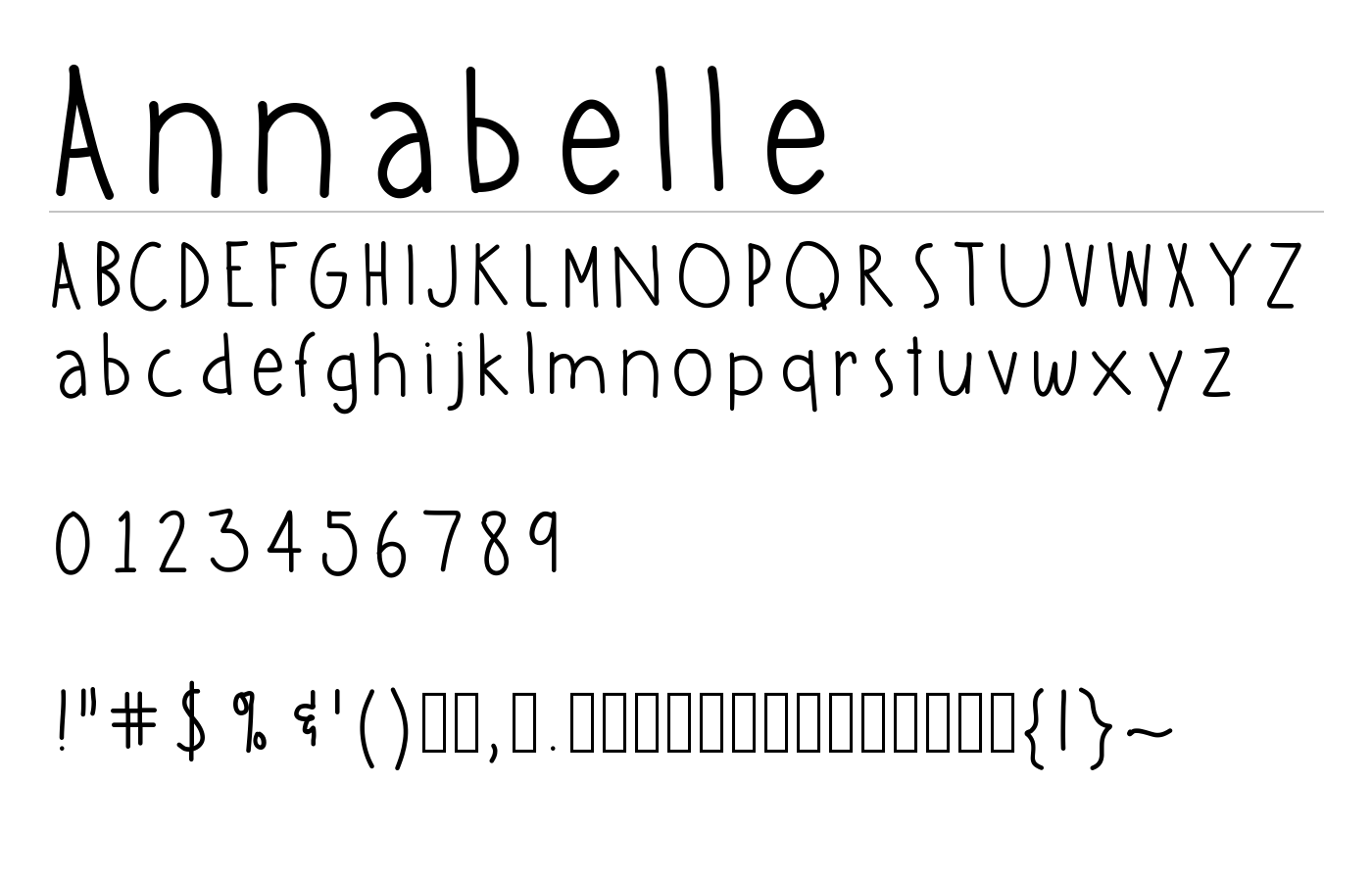
Annabelle Font is a playful and friendly sans serif with a hand-drawn, casual feel. Its tall, narrow letterforms and slightly irregular strokes give it a charming, informal personality perfect for projects needing a personal touch, such as greeting cards, children’s books, or creative branding. This font works best in headlines or short text where a warm, approachable vibe is desired.
Annabelle Font
About Annabelle Font